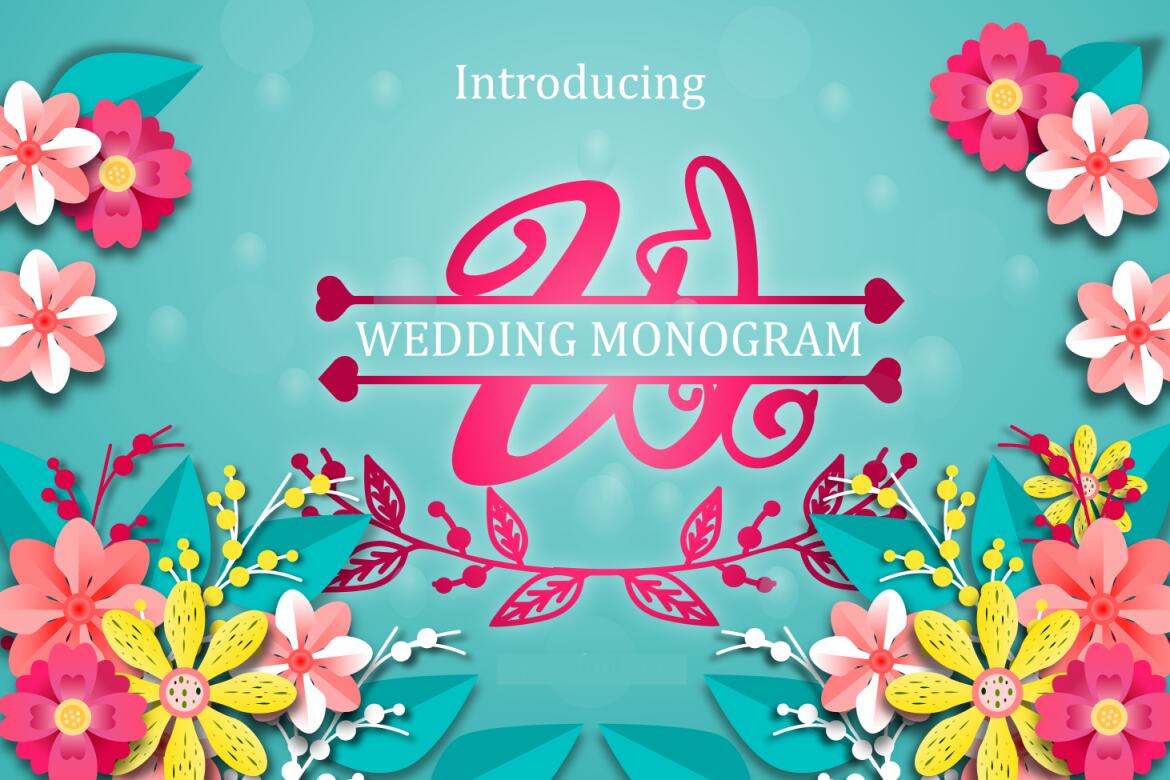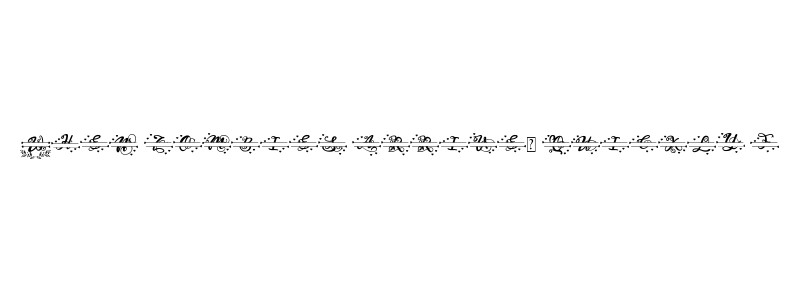
Wedding Monogram - Free Font
Wedding Monogram
Wedding Monogram simplifies elegance into one truly outstanding handwritten font. Fall in love with its incredibly versatile style and use it to create gorgeous wedding invitations, beautiful stationary art, eye-catching social media posts, and much more!